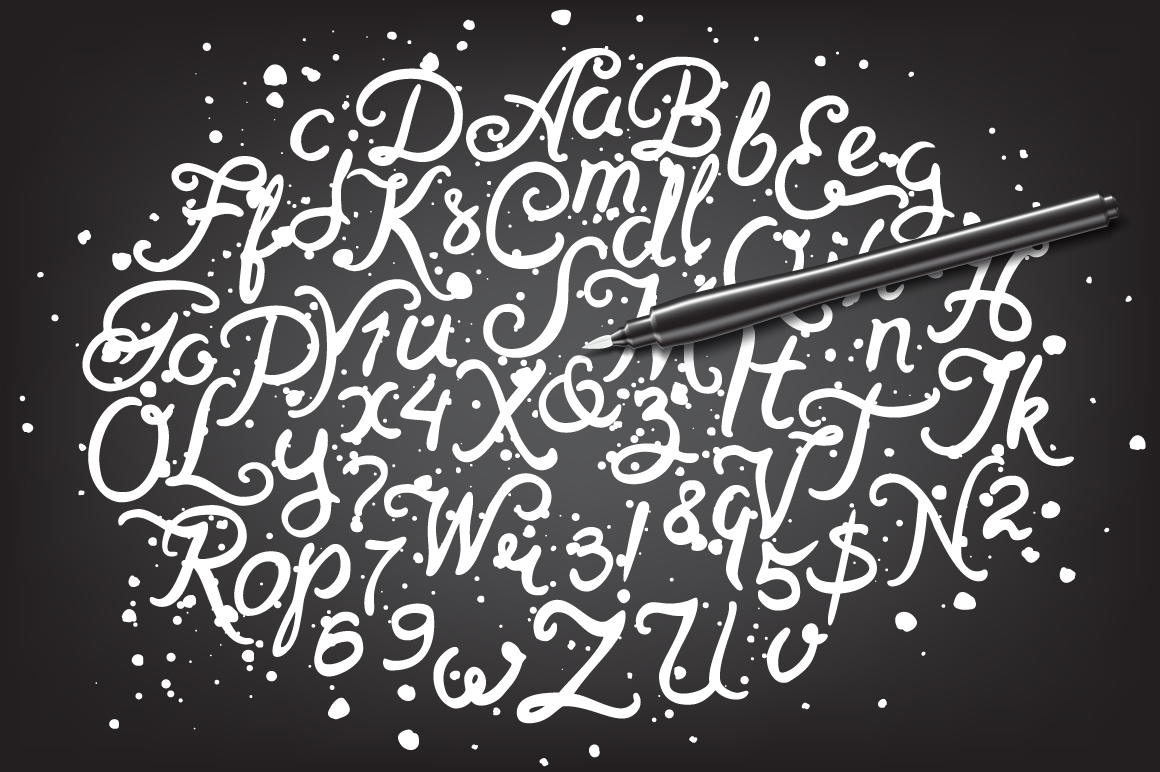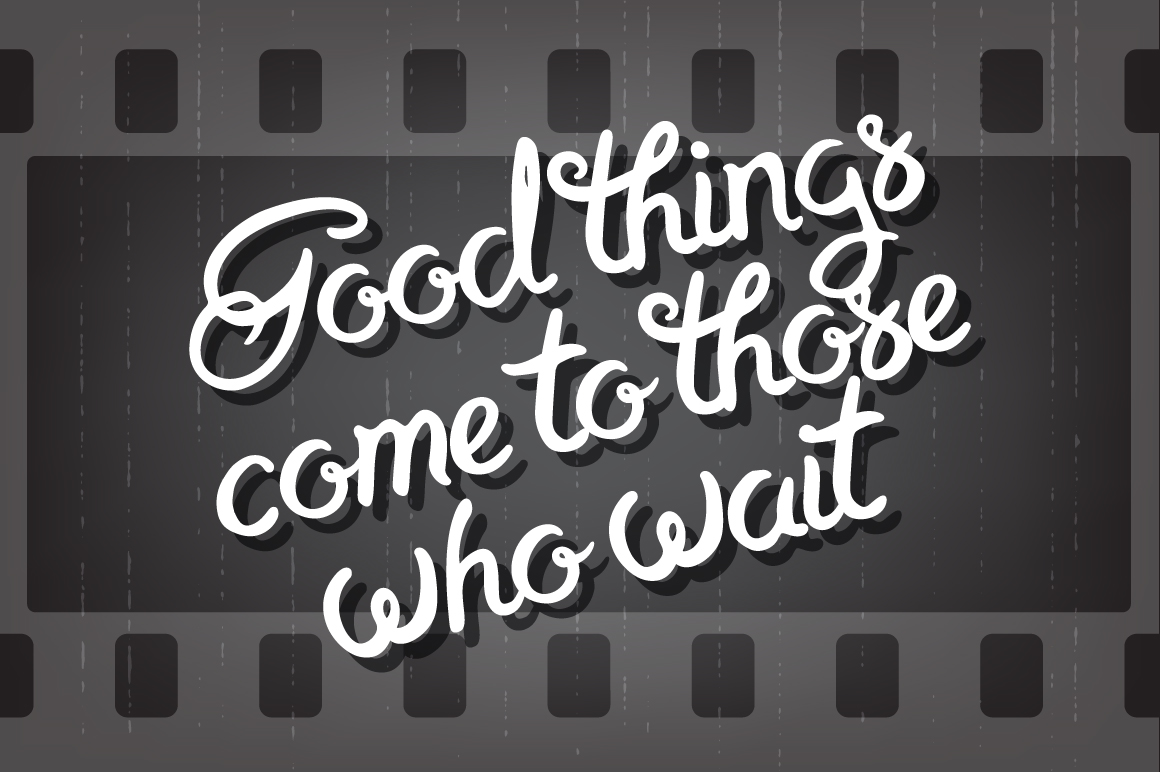
Introducing Barbara Font: A Stunning Handmade Brushpen Font
Are you tired of using the same old fonts in your designs? Do you want to add a personal touch to your craft projects? Look no further than Barbara Font, a beautiful handmade brushpen font that’s sure to elevate your designs to the next level. In this article, we’ll take a closer look at Barbara Font, its features, and how you can use it to create stunning designs.
What is Barbara Font?
Barbara Font is a handmade brushpen font that’s been carefully crafted to give your designs a unique and personal touch. With its beautiful, flowing lines and subtle imperfections, Barbara Font is perfect for designers and crafters who want to add a touch of elegance and sophistication to their work.
Features of Barbara Font
- Handmade with love: Barbara Font is a truly handmade font, created with a brushpen to give it a unique, organic feel.
- Unique character set: Barbara Font includes a wide range of characters, including uppercase and lowercase letters, numbers, and punctuation marks.
- Subtle imperfections: Unlike computer-generated fonts, Barbara Font has subtle imperfections that give it a personal, handmade feel.
- High-quality design: Barbara Font is designed to be clear and legible, making it perfect for use in a wide range of design projects.
How to Use Barbara Font
Barbara Font is incredibly versatile and can be used in a wide range of design projects, from digital designs to handmade crafts. Here are a few ideas to get you started:
- Digital designs: Use Barbara Font in your digital designs, such as social media graphics, blog posts, and email newsletters.
- Handmade crafts: Add a personal touch to your handmade crafts, such as scrapbooking, card making, and journaling.
- Branding and packaging: Use Barbara Font to create unique and eye-catching branding and packaging for your business.
Tips for Working with Barbara Font
Here are a few tips to help you get the most out of Barbara Font:
- Experiment with different sizes and colors: Barbara Font looks great in a wide range of sizes and colors, so don’t be afraid to experiment and find the combination that works best for your design.
- Pair with other fonts: Barbara Font pairs beautifully with other fonts, so try combining it with a sans-serif font for a striking contrast.
- Use it sparingly: Because Barbara Font is so beautiful, it’s tempting to use it for entire blocks of text. However, it’s often more effective to use it sparingly, such as for headings or emphasis.
Barbara Font is a stunning handmade brushpen font that’s sure to add a touch of elegance and sophistication to your designs. With its unique character set, subtle imperfections, and high-quality design, Barbara Font is perfect for designers and crafters who want to create beautiful, eye-catching designs. Whether you’re working on a digital design project or a handmade craft, Barbara Font is a great choice.